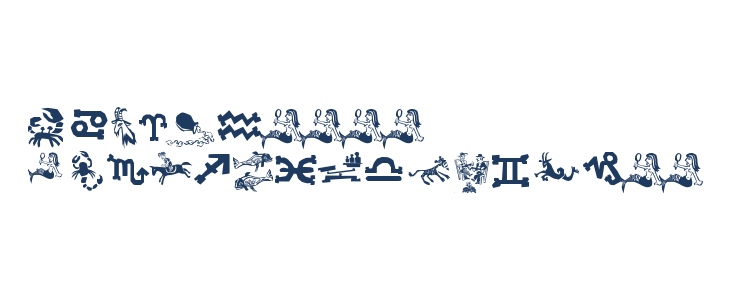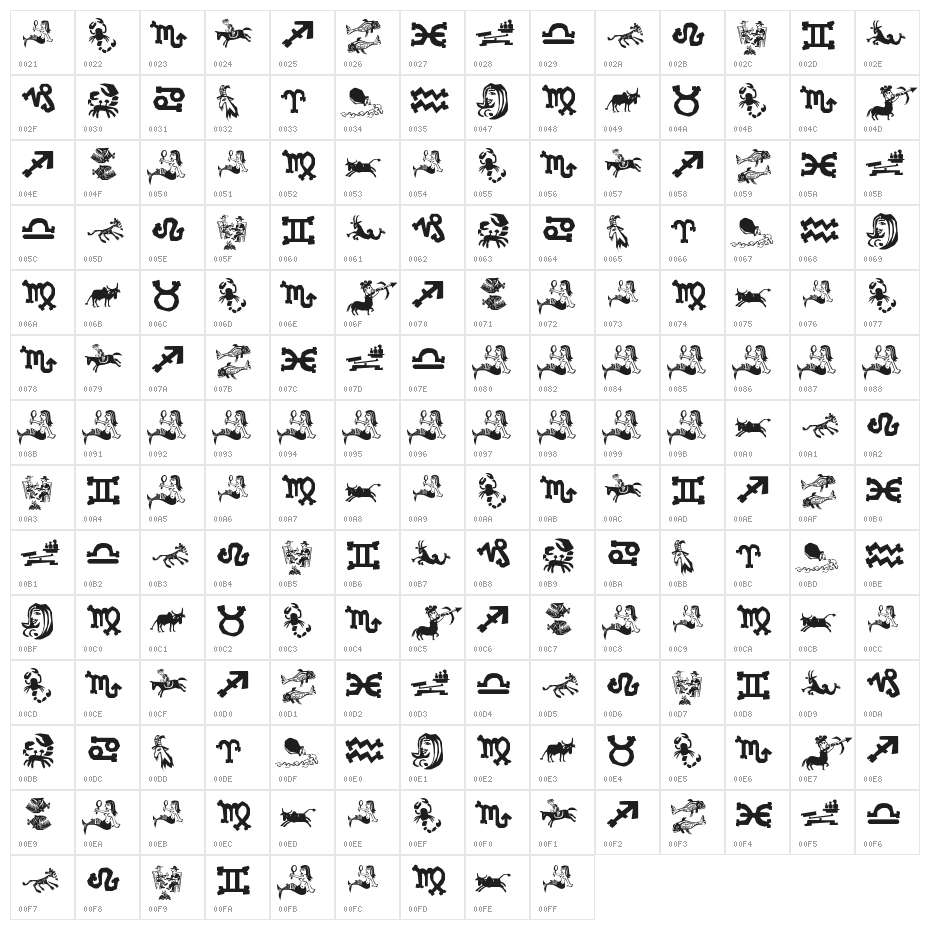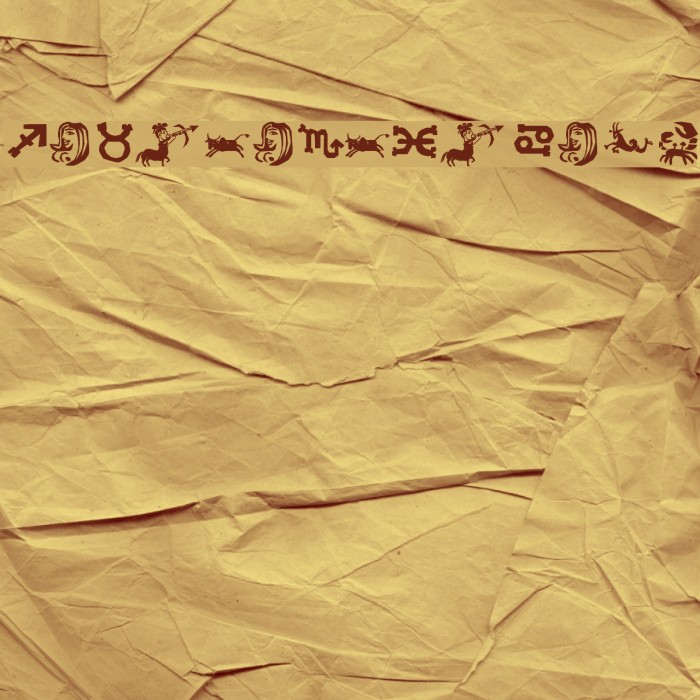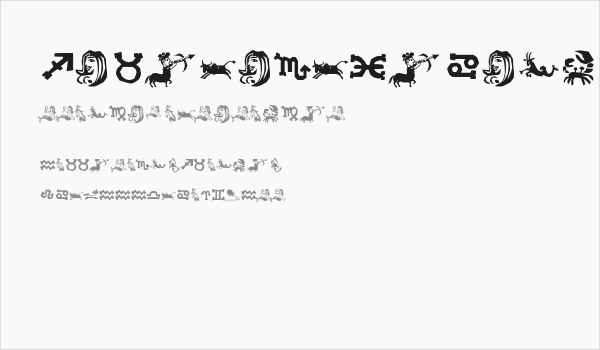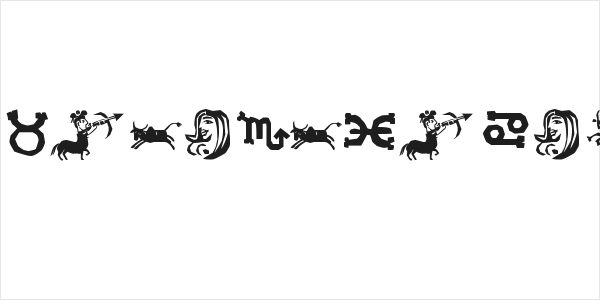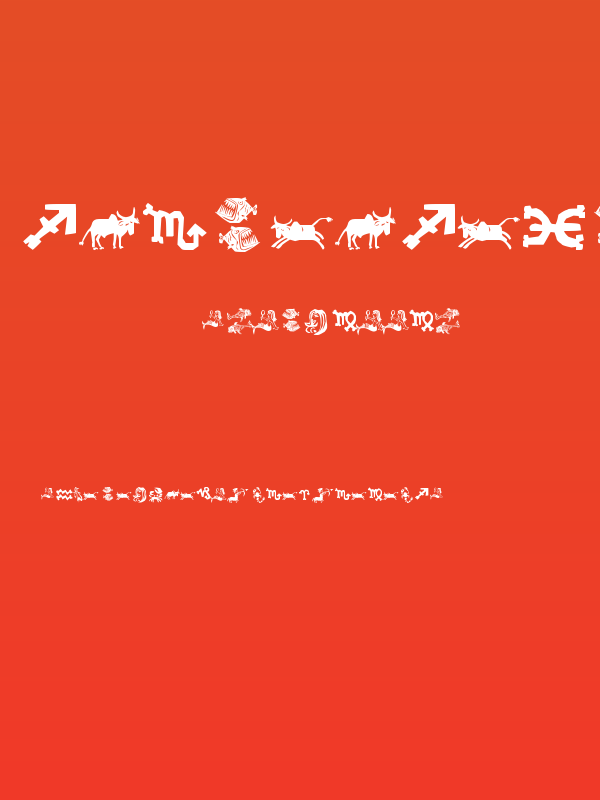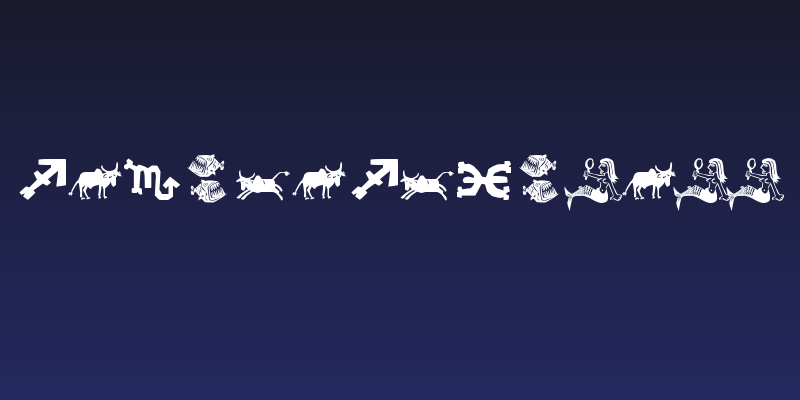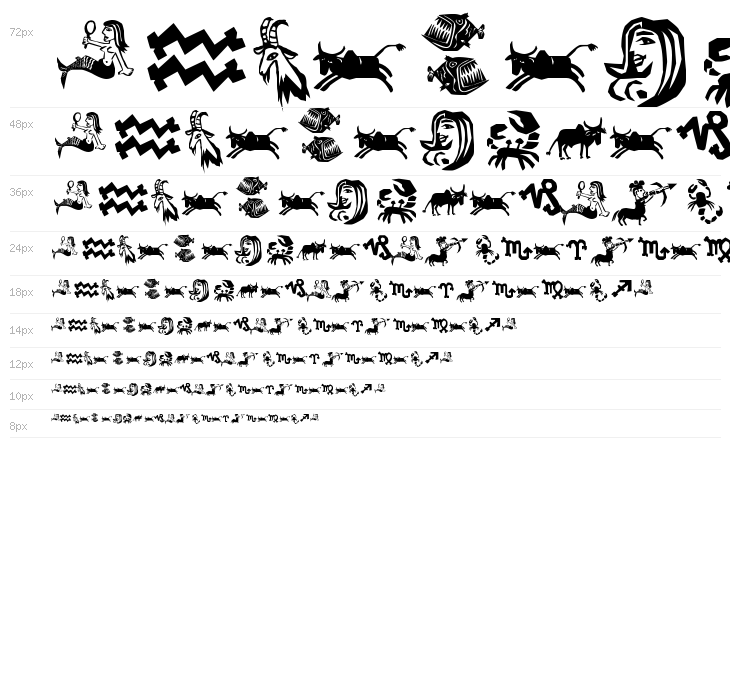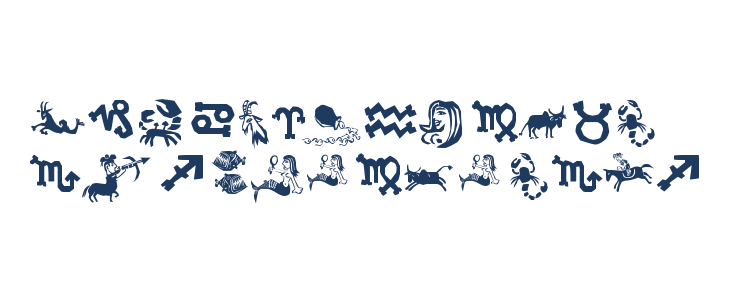
Xilo in Zodiac Font
Xilo in Zodiac Description
This decorative font features a series of zodiac symbols, each intricately designed to represent the astrological signs. The characters are highly stylized, with each symbol incorporating elements that are characteristic of its corresponding zodiac sign. The font is visually engaging, with a playful and artistic flair that makes it suitable for creative projects. The symbols are bold and distinct, ensuring they stand out in any design. This font is perfect for adding a mystical or astrological theme to your work, whether it's for a horoscope column, a themed event, or a creative project that requires a touch of the zodiac.
| Use Case | Logos, Headlines, Themed Events |
| Proposed Projects | Astrology-themed designs, horoscope columns, event invitations, creative projects with a mystical theme. |